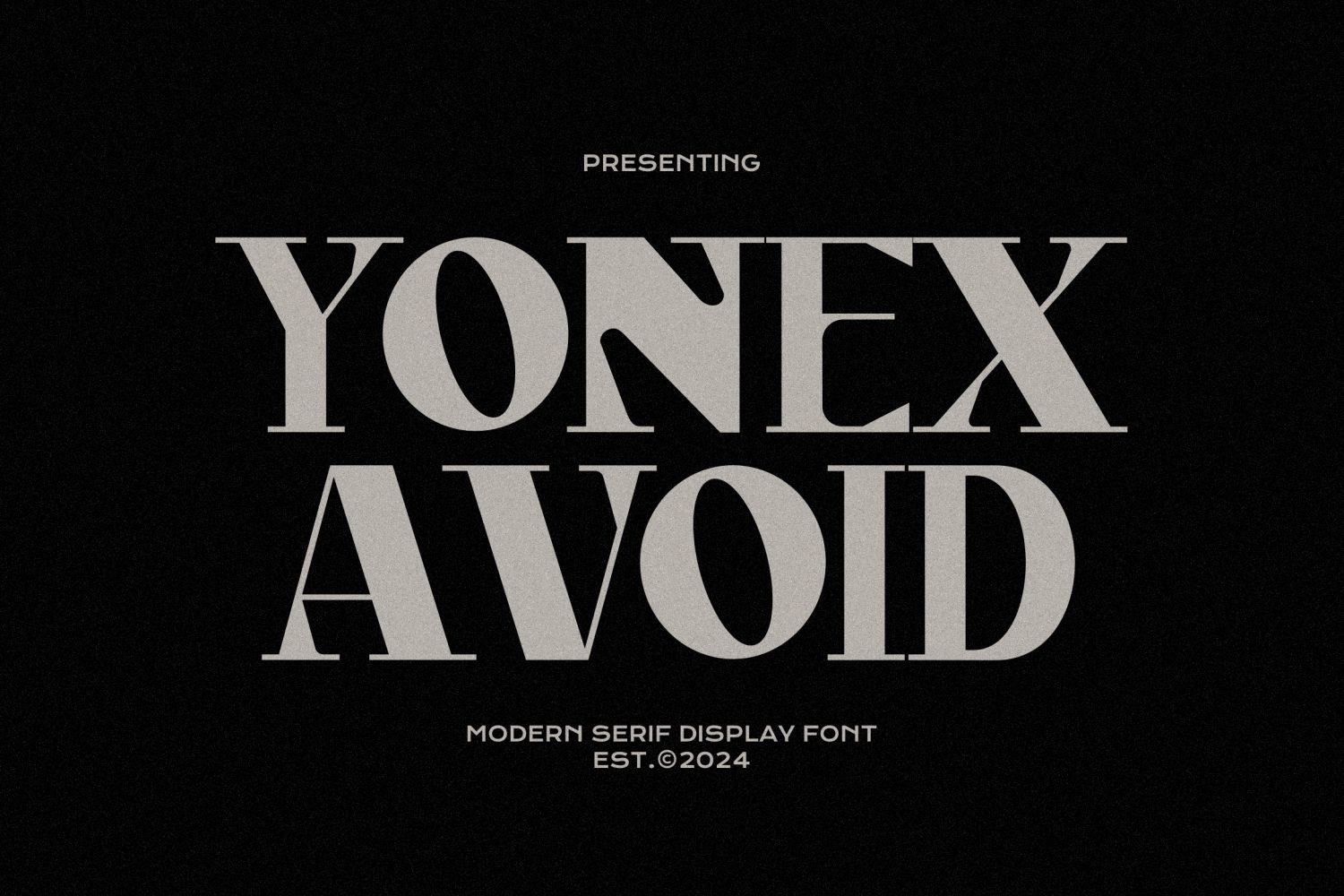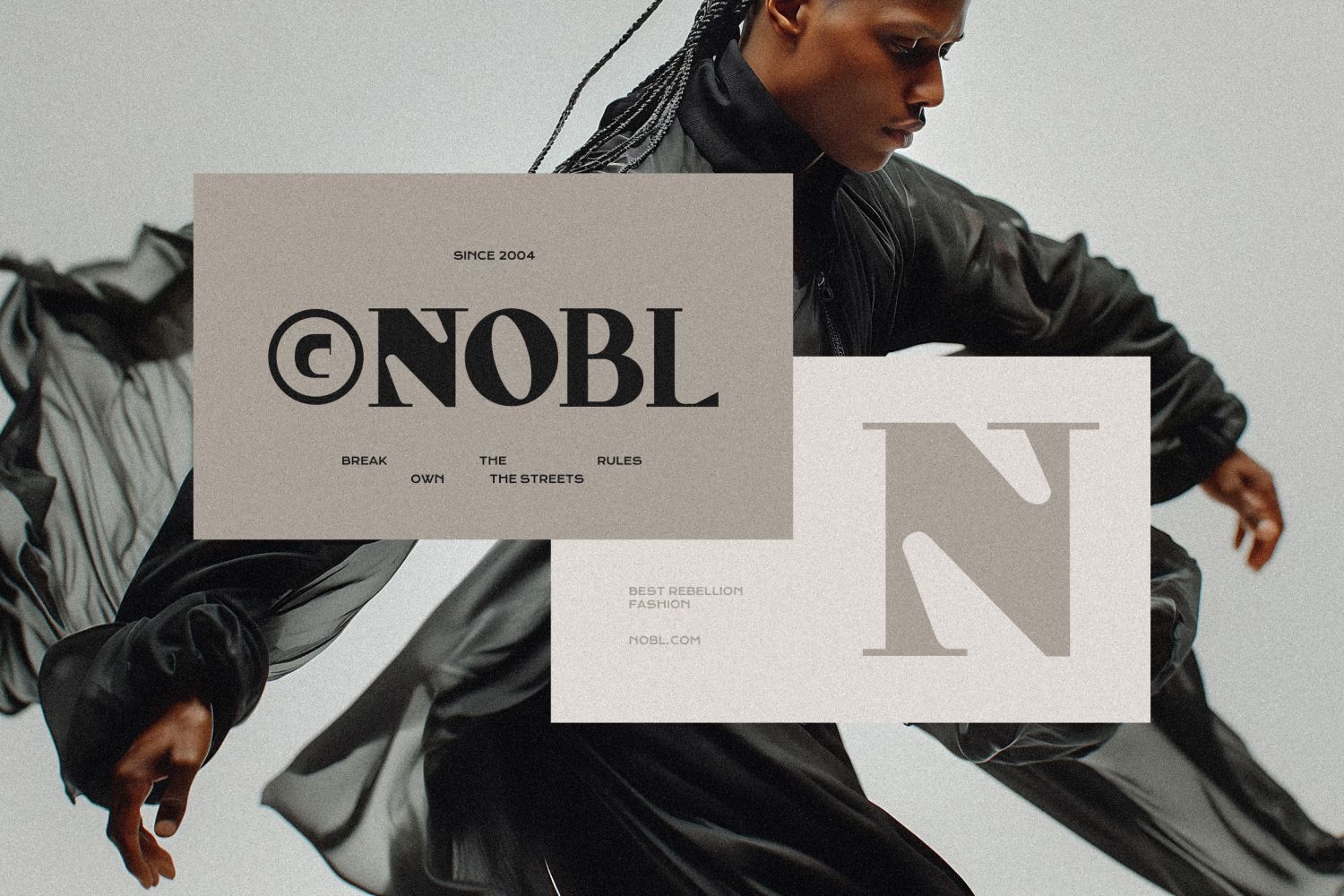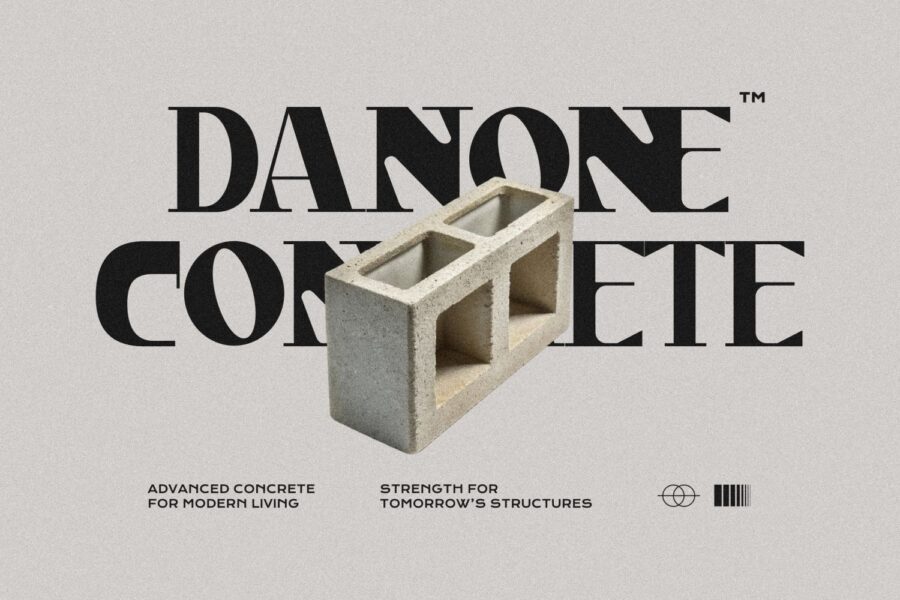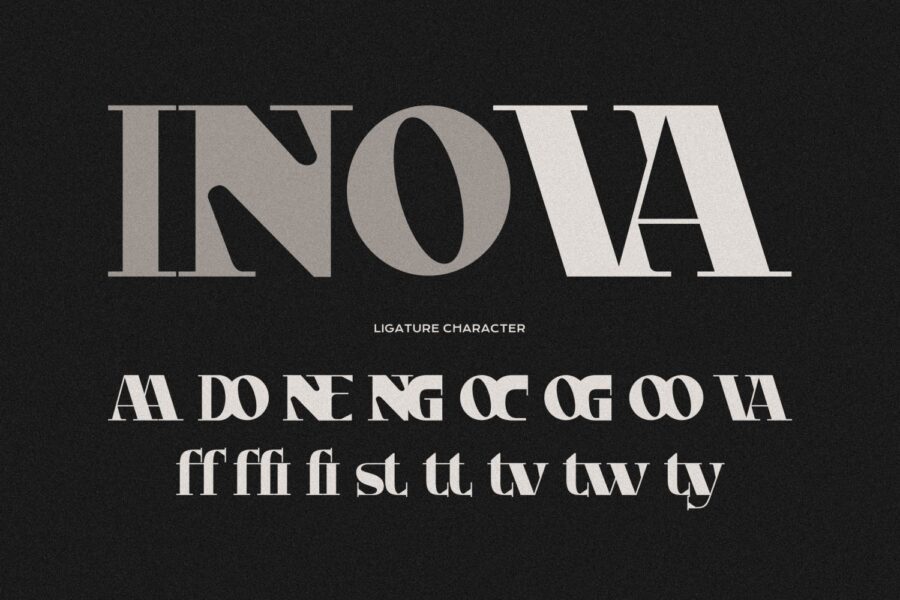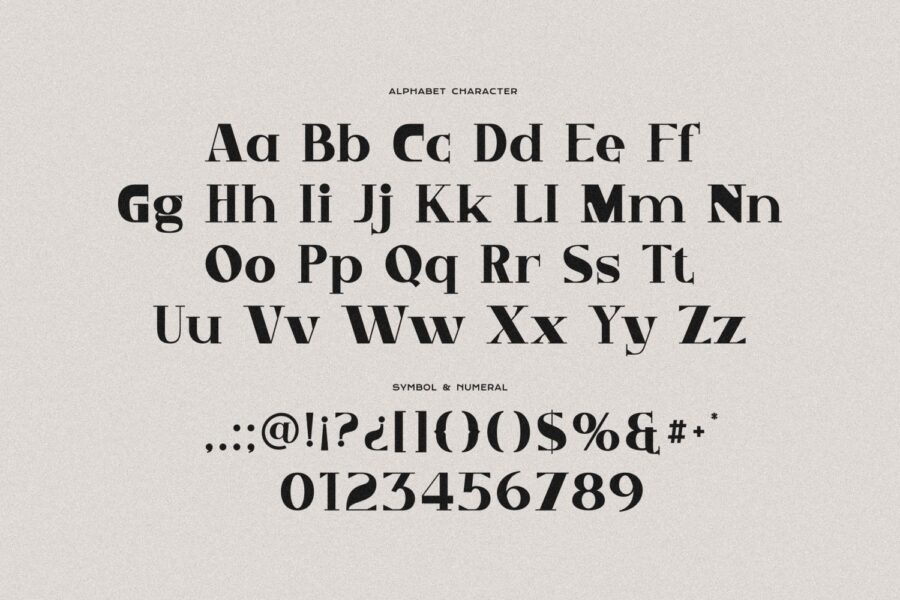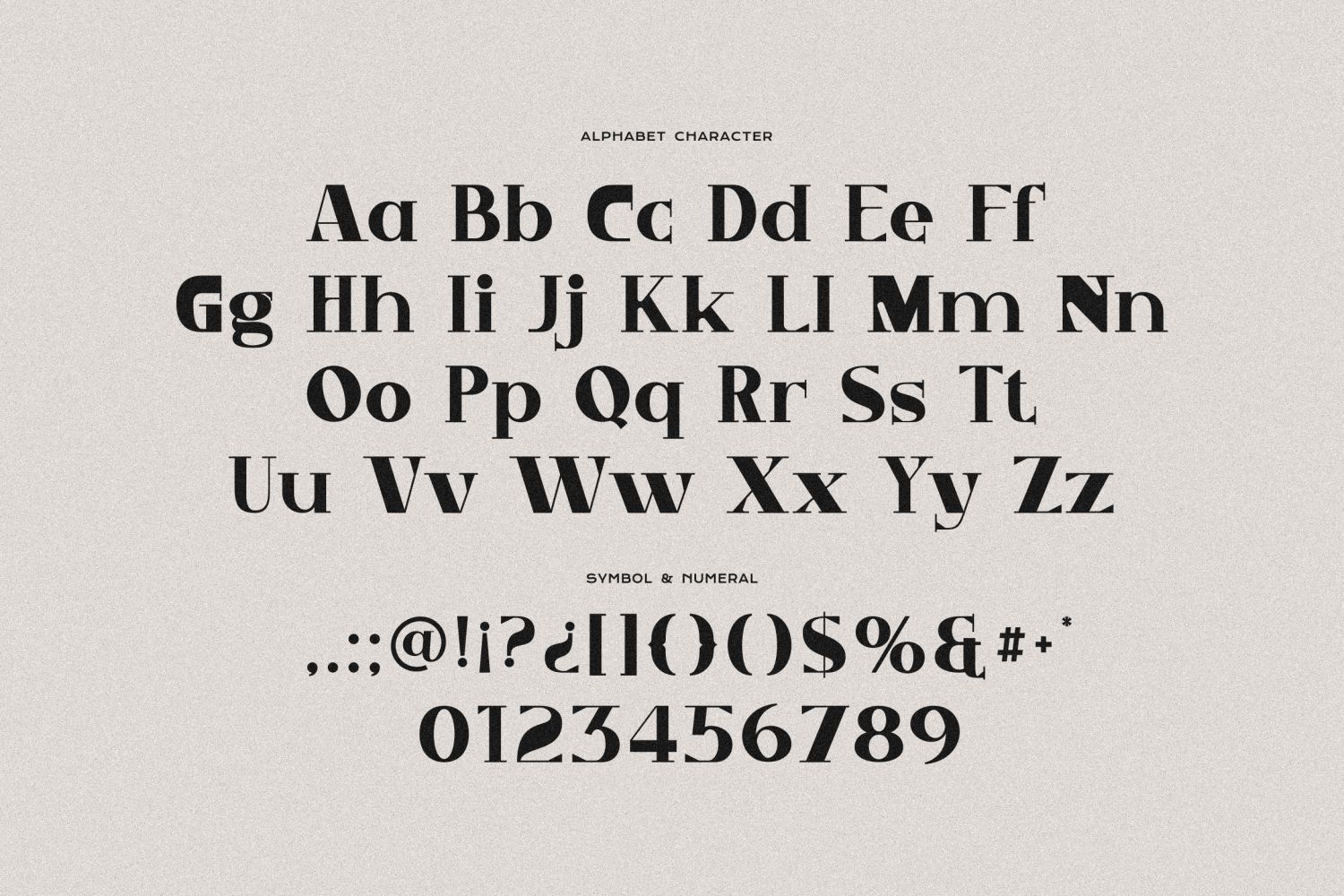
Yonex Avoid is a bold and sophisticated modern serif display font that blends timeless elegance with striking contemporary flair. Featuring high-contrast strokes, sharp serifs, and distinctive ligatures, this typeface commands attention in luxury branding, fashion editorials, and premium product packaging. Its unique letterforms create a strong visual impact, making it perfect for projects that require a confident and memorable identity.
With its versatile style, Yonex Avoid works beautifully across both print and digital media. Whether used for magazine headlines, minimalist logos, posters, or high-end advertisements, this font adds a touch of refinement while maintaining a bold, modern presence. Its character set includes uppercase, lowercase, numerals, punctuation, and stylish ligatures. Ensuring creative flexibility for any design project.